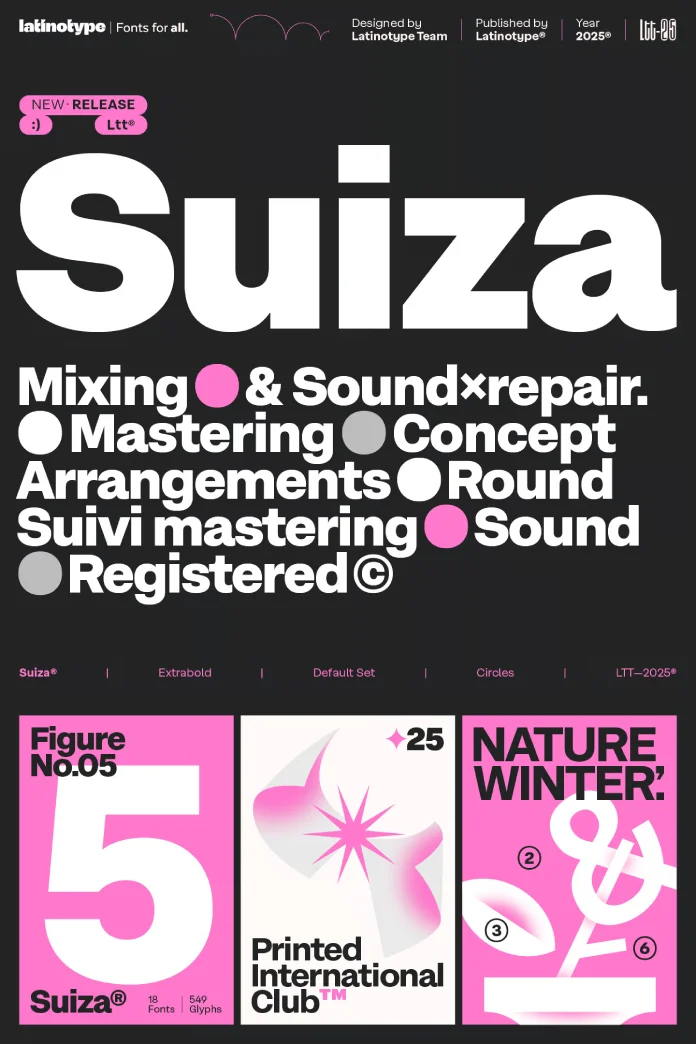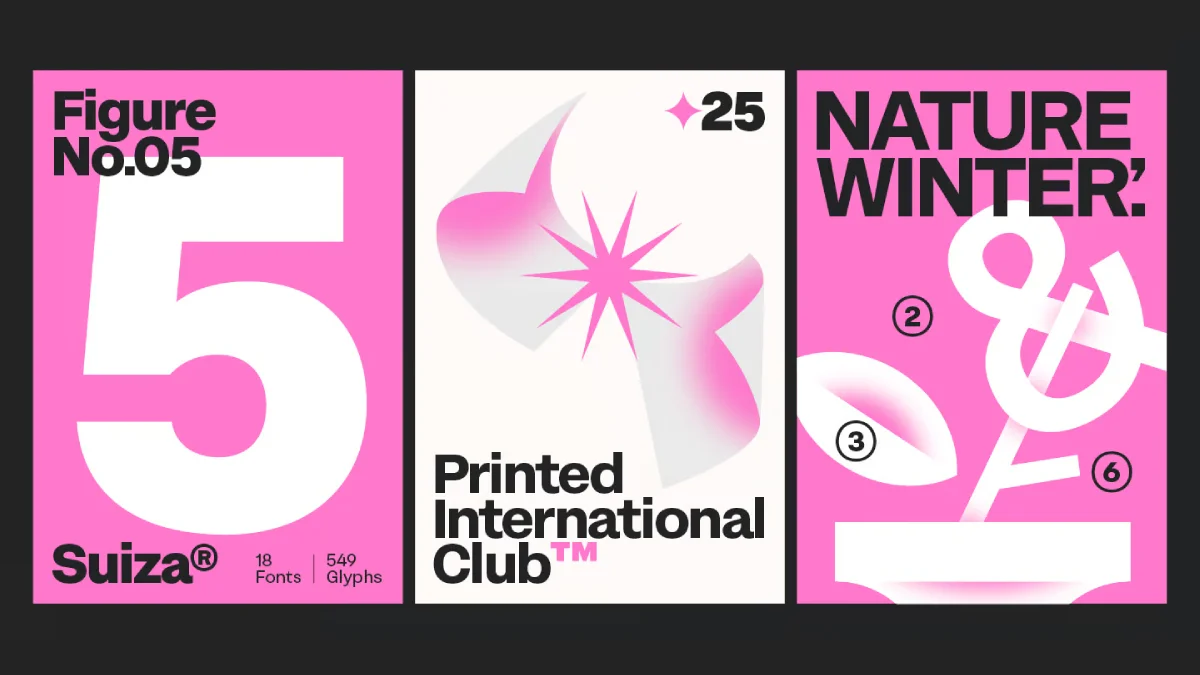
The right typeface sets the tone, impacts readability, and ultimately defines the visual voice of a project. You’ve probably scrolled through countless options, searching for that perfect blend of style and function. Well, allow me to introduce you to a contender that might just end your search: the Suiza font family by Latinotype. This isn’t just another sans-serif; Suiza brings something special to the table. It carries the weight of typographic history while feeling undeniably fresh and modern. Have you ever looked for a font that feels both reliable and expressive? Suiza might be exactly what you need. Let’s explore what makes this typeface tick and why it’s catching the eyes of designers everywhere.
Suiza Font Family: Why This Modern Sans-Serif Might Be Your Perfect Typeface
You know that feeling when you stumble upon a design tool that just works? Something versatile, reliable, yet full of character? That’s the kind of energy the Suiza font family brings. Created by the talented team at Latinotype, Suiza is a contemporary sans-serif typeface that masterfully balances versatility with a distinctively rational, modern personality. Think of it as a bridge between timeless principles and current design needs.
Its foundation lies firmly in the Swiss typography tradition, specifically the influential style of the 1960s. Does that era ring a bell? Think clean lines, objective clarity, and a focus on function. Suiza respects this heritage. However, it doesn’t simply replicate the past. Instead, it infuses that classic precision with a fresh, dynamic sensibility that feels relevant right now. It’s like taking a beautifully engineered vintage car and fitting it with a state-of-the-art engine – you get the classic charm and modern performance.
Rooted in History, Designed for Today: The Suiza DNA
The designers at Latinotype didn’t create Suiza in a vacuum. They looked at the giants of Swiss style, fonts known for their geometric clarity and unwavering functionality. Imagine the kind of order and legibility you see in iconic designs – maybe like the famous Helvetica or even the clear signage of the New York City subway system. These are powerful references, aren’t they? Suiza draws inspiration from this legacy of structured communication.
But here’s where Suiza carves its own path. It blends that structured, almost architectural, precision with the warmth and expressiveness often associated with Latin design sensibilities. It’s a fascinating combination. You get the rigor and clarity inherited from its Swiss predecessors, but it feels less rigid, more approachable. This unique mix gives Suiza flexibility and expressive potential that makes it suitable for an incredibly wide array of applications. It’s not just about looking clean; it’s about communicating effectively with a touch of personality.
What Makes the Suiza Font Family Stand Out?
So, what are the specific ingredients that make Suiza special? Let’s look under the hood. First off, it’s a comprehensive family. With a generous offering of 18 distinct styles – ranging from delicate Thin weights to impactful Black weights, plus accompanying italics – Suiza provides a fantastic typographic toolkit. Need a subtle hierarchy in your text? You’ve got options. Want a bold headline that demands attention? Suiza delivers. This range is crucial for creating cohesive and dynamic designs.
Furthermore, each style contains 593 glyphs. What does that mean for you? It means extensive language support and access to various symbols, numerals, and alternates that add professional polish to your work. Beyond the numbers, the design itself is meticulously crafted. Suiza features a well-balanced structure. Its letterforms are clear, with clean terminals (the ends of strokes) and sharp, precise cuts. These details might sound subtle, but they significantly contribute to the font’s overall clarity and its confident, self-assured presence on the page or screen. It reads beautifully, even at smaller sizes, yet holds its own when scaled up. Have you ever struggled with a font that looks great large but falls apart in body text? Suiza aims to avoid that problem.
Unlocking Versatility: Where Can You Use Suiza?
Okay, we’ve established that Suiza is well-crafted and has interesting roots. But where does it truly shine? Its real strength lies in its remarkable versatility. Thanks to its blend of clarity, character, and extensive weight range, Suiza adapts beautifully to various contexts.
- Branding and Identity: Looking for a font for a new logo or a complete brand system? Suiza offers a modern, professional, yet approachable feel. Its range allows you to build a consistent visual language across all brand touchpoints, from logotypes and headlines to taglines and body copy. It can convey trustworthiness and sophistication without feeling cold or impersonal.
- Web Design and UI/UX: Legibility is paramount online. Suiza excels on screen. Its clear letterforms and balanced spacing ensure comfortable reading in paragraphs of text. Simultaneously, its bolder weights work perfectly for headings, buttons, and calls to action in user interfaces. Could Suiza improve the user experience of your next digital project?
- Editorial Design: Magazines, brochures, reports – any project involving significant amounts of text can benefit from Suiza. Its readability makes it ideal for body copy, while the variety of weights provides ample options for headlines, subheadings, pull quotes, and captions. It helps create pages that are easy to navigate and visually engaging.
- Packaging and Signage: Need type that stands out and communicates clearly from a distance? The sharper cuts and confident forms of Suiza, especially in medium to bolder weights, work wonderfully for packaging design and environmental graphics or signage. It’s legible, impactful, and modern.
Essentially, if you need a sans-serif that works hard, looks great, and adapts to different situations without losing its personality, Suiza is a strong contender.
Suiza vs. The Classics: Finding Its Unique Voice
It’s natural to compare a Swiss-inspired sans-serif like Suiza to the established classics, particularly Helvetica. Both share a common ancestor in Swiss functionalism. However, Suiza isn’t trying to be a clone. While it embraces the clarity and order of its predecessors, it offers subtle but significant differences.
Think about the overall feeling. Sometimes, purely geometric or neo-grotesque fonts can feel a touch sterile or overly neutral. Suiza, with its Latinotype influence, seems to possess a bit more warmth, a slightly more human touch. The terminals might be cleaner, the cuts sharper in places, giving it a contemporary edge. It maintains the rigor but perhaps feels less constrained, allowing for more expressive possibilities, especially when you explore the different weights and italics. It’s like choosing between a perfectly tailored grey suit (a classic) and a similar suit with a unique lining or cut (Suiza) – both professional, but one has a distinct personality. Which one better suits the message you want to convey?
Getting Acquainted: Weights, Glyphs, and Potential
Let’s revisit the practical aspects. The 18 styles aren’t just slight variations; they offer a significant spectrum of typographic color. From the airy Thin and Light weights, perfect for elegant headlines or delicate captions, through the workhorse Regular and Medium weights, ideal for text, up to the commanding Bold, Extra Bold, and Black weights for maximum impact – you have the tools for complex typographic hierarchy.
The inclusion of true italics across the weight range adds another layer of versatility. These aren’t just slanted romans; they are distinct designs crafted to complement their upright counterparts, perfect for emphasis, contrast, or adding a touch of elegance. And with 593 glyphs per style, you’re well-equipped for multi-language projects and accessing special characters that elevate your typography. This comprehensive nature makes Suiza a practical and robust choice for demanding design tasks.
Why Consider Suiza for Your Typographic Toolkit?
Choosing a font is a commitment. You want something reliable, aesthetically pleasing, and functional. So, why should Suiza earn a place in your collection?
- Modern Swiss Sensibility: It captures the best of Swiss clarity and marries it with contemporary warmth and dynamism. It feels both timeless and current.
- Exceptional Versatility: The wide range of weights and styles, coupled with its inherent readability, makes Suiza suitable for almost any application, from print to digital, branding to editorial.
- Professional Craftsmanship: Developed by Latinotype, a foundry known for quality, Suiza exhibits meticulous attention to detail in its structure, spacing, and glyph design.
- Distinct Character: While rooted in familiar territory, Suiza possesses its own voice. It’s clear and functional but never dull. It offers a subtle personality that can elevate a design.
- Comprehensive Family: With 18 styles and extensive glyph support, it’s a practical workhorse that can handle complex typographic challenges.
Isn’t it exciting to find a typeface that balances so many desirable qualities? Suiza represents a thoughtful evolution of sans-serif design. It respects its heritage while confidently stepping into the present. It offers designers a powerful blend of functionality, flexibility, and refined aesthetics.
Perhaps the next time you’re searching for that perfect sans-serif – one that feels both familiar and fresh, robust and refined – you’ll think of Suiza. Could this be the font that brings clarity, character, and cohesion to your next project? It’s definitely worth exploring.